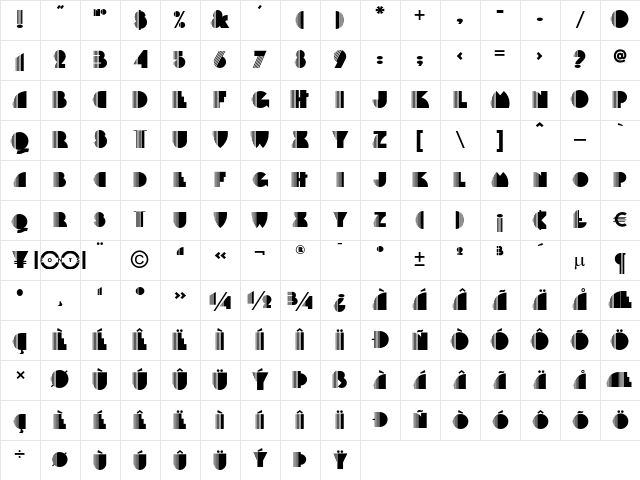
Complete Backstage Pass NF Regular glyph index. Displaying only characters natively supported by Backstage Pass NF Regular font.
Backstage Pass NF is a composed and adaptable typeface that performs quietly and consistently across a wide range of design contexts.